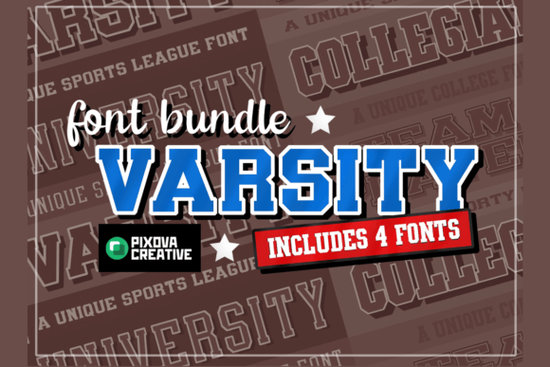
If you’ve been searching for a font that nails the classic American college vibe think letterman jackets, stadium banners, and team spirit posters the Varsity College Sport Bundle Font is worth checking out. It’s not just one font, but four hand-crafted serif styles designed to give your projects that authentic athletic look without needing to dig through vintage archives or design from scratch.
What’s actually included in the bundle?
You get four distinct typefaces, each with its own personality but all sharing that bold, sporty collegiate feel:
- Varsity – Clean lines with slightly rounded edges, perfect for headlines and logos.
- University – A bit more traditional, great for diplomas, certificates, or academic-themed designs.
- Collegiate – Strong serifs and blocky presence, ideal for banners and apparel.
- Team Player – Slightly playful but still structured, works well for youth teams or casual branding.
If you’ve ever browsed other serif fonts on Creative Fabrica, you’ll notice these have a more focused, thematic edge. They’re not trying to be everything to everyone they’re built for a specific mood and audience, which makes them easier to pair and style.
Who should use these fonts?
Honestly? Anyone who wants their project to feel energetic, nostalgic, or proudly team-oriented. Here’s where they shine:
- Small business owners – Local gyms, sports bars, or youth leagues often need branded flyers, social media graphics, or signage. This bundle gives you multiple options without buying separately.
- Crafters and hobbyists – Making personalized gifts for graduation, sports banquets, or pep rallies? These fonts add polish without needing design skills.
- Teachers and coaches – Create classroom posters, award certificates, or team schedules that look professional and fun.
How do they compare to other sporty fonts?
There are plenty of “college-style” fonts out there, but many feel either too stiff or overly cartoonish. The Varsity College Sport Bundle strikes a nice middle ground structured enough to look official, but with enough character to feel human-made. You can see how they differ from something like other varsity-inspired fonts in the way the serifs are shaped and how spacing feels intentional, not automated.
Also, since all four fonts are bundled, you don’t have to worry about mismatched weights or inconsistent x-heights when layering text. That’s a big plus if you’re stacking names over numbers or combining headlines with subheadings.
Any tips for getting the most out of these fonts?
A few practical ideas to make your designs pop:
- Pair with clean sans-serifs. Let the varsity fonts handle the attention-grabbing headlines, and use something neutral like Helvetica or Arial for body text.
- Use color strategically. Classic combos like navy + gold, crimson + white, or black + silver work wonders. Avoid neon unless you’re going for a retro 80s vibe.
- Add subtle textures. A slight paper grain or distressed overlay can make digital designs feel more tactile especially good for merchandise mockups.
- Don’t overcrowd. These fonts have presence. Give them breathing room so the details (like those little serifs and tapered strokes) don’t get lost.
One thing to note: while these fonts are versatile, they’re not meant for tiny body text or minimalist branding. Save them for moments where you want to convey energy, tradition, or pride.
Where can I see examples of these fonts in action?
Creative Fabrica’s product page usually includes mockups things like t-shirt designs, poster layouts, and social media banners. Scroll through those to get inspired. You’ll also find user uploads in the reviews section, which show how other designers have used them in real projects. It’s a great way to see what works before you start your own.
If you’re still unsure whether this bundle fits your style, try comparing it visually with fonts you already own. Sometimes seeing side-by-side samples helps more than reading descriptions.
Fonts like these aren’t just tools they’re shortcuts to a feeling. If your project needs to say “team,” “tradition,” or “trophy,” this bundle does the heavy lifting for you.